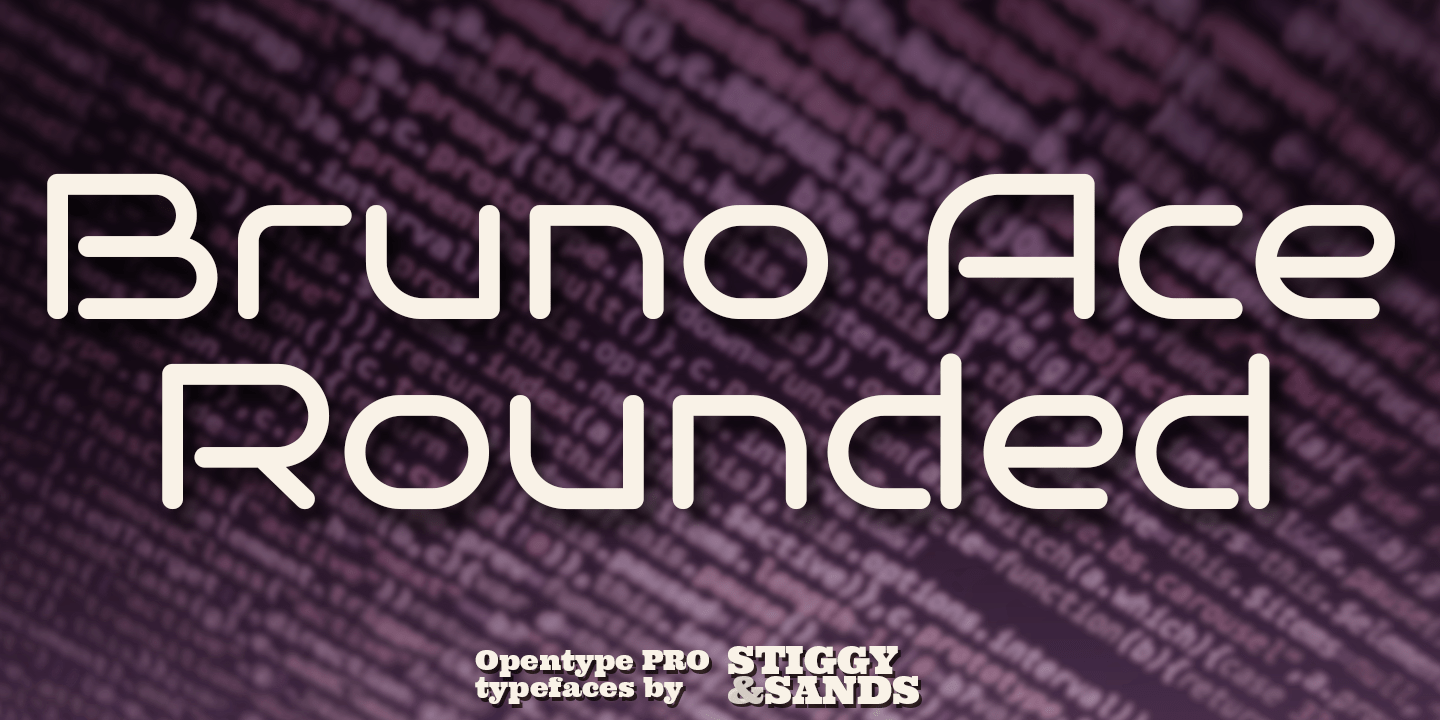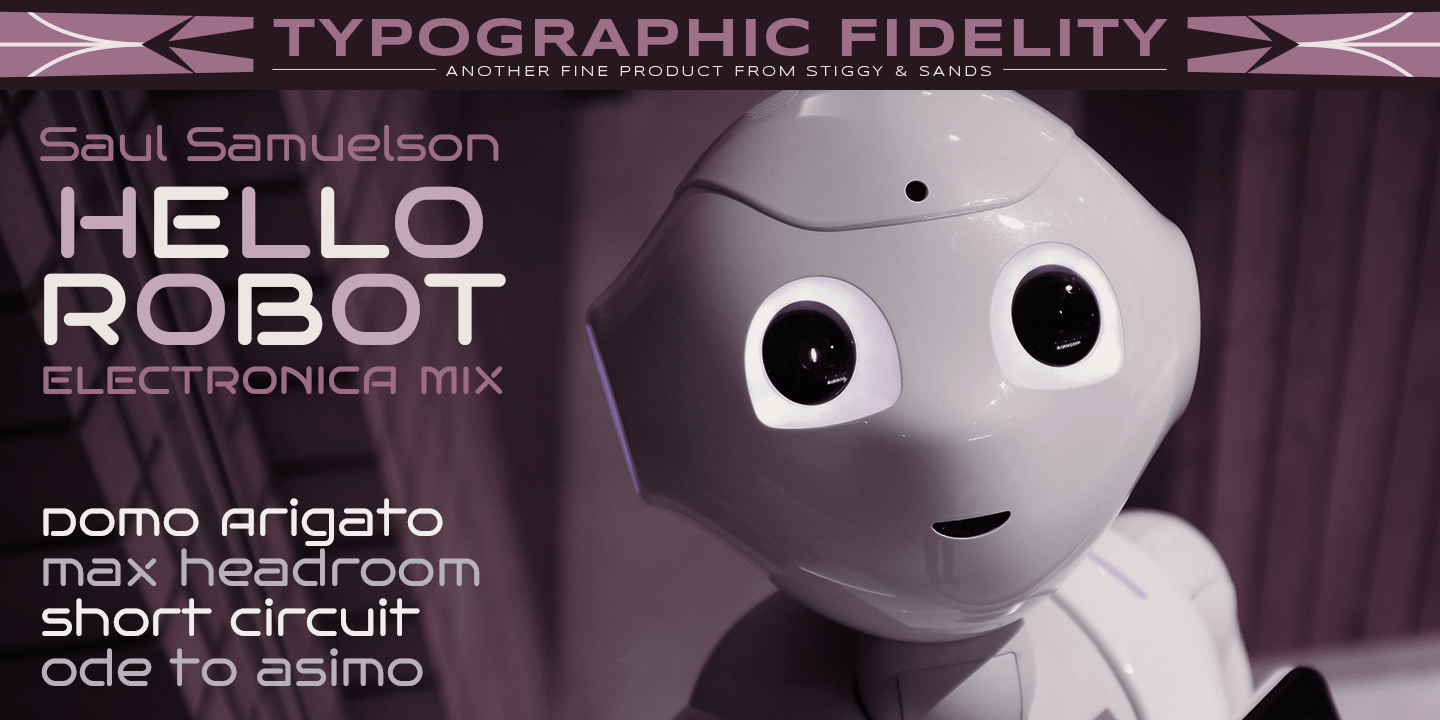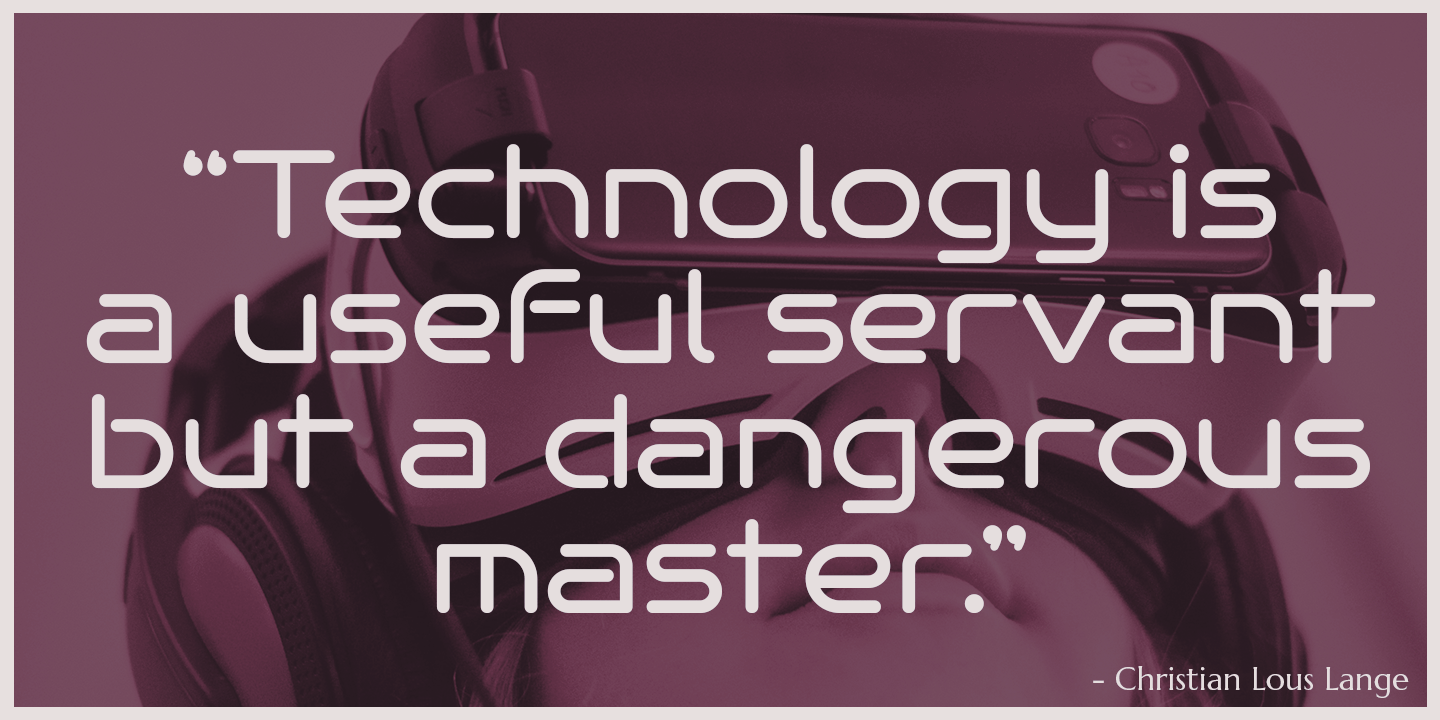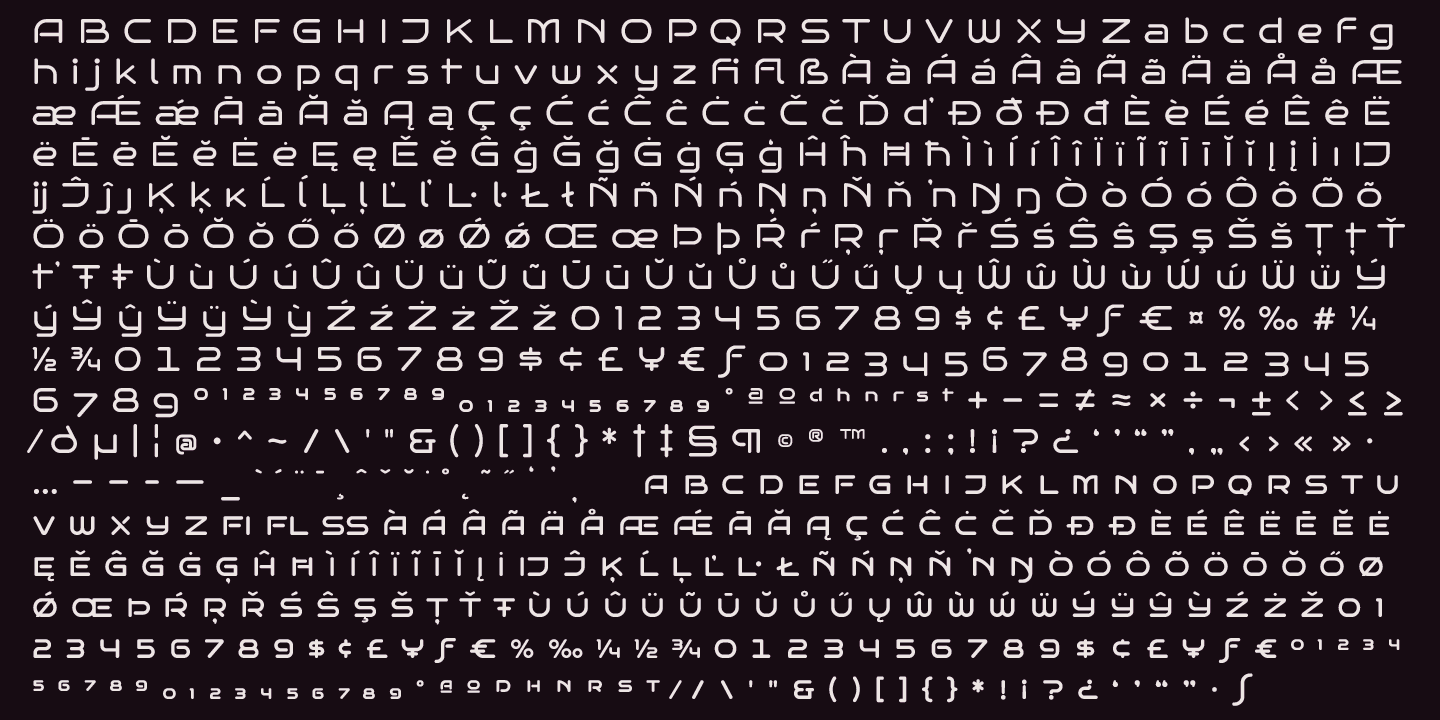
Bruno Ace Rounded
Font Family by Stiggy & Sands
Auto-Techno-Motive Stance in a softer package.
Bruno Ace Rounded Pro is a fresh derivative of our Bruno Ace Pro typeface. It draws its inspiration from modern automotive logotypes. This geometric sans-serif has a wide stance with a tall x-height for a strong look and appeal, as well as ease of legibility. The SmallCaps and extensive figure sets offer a more extensive range of use as well as a more intense vibe. Bruno Ace Rounded Pro has an obviously softer feel to it compared to the original.
Opentype features include:
? SmallCaps.
? Full set of Inferiors and Superiors for limitless fractions.
? Tabular, Proportional, and Oldstyle figure sets (along with SmallCaps versions of the figures).
? Stylistic Alternates for Caps to SmallCaps conversion.